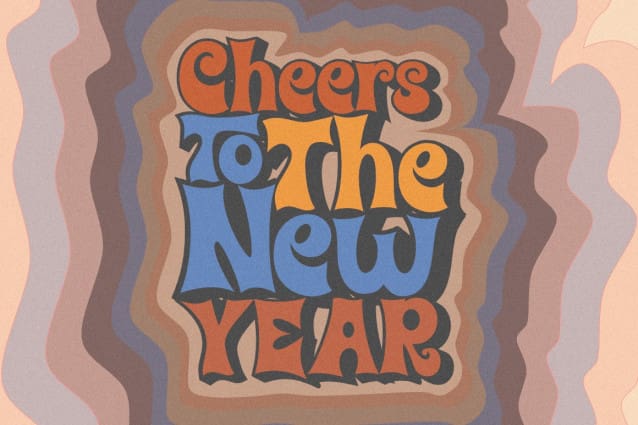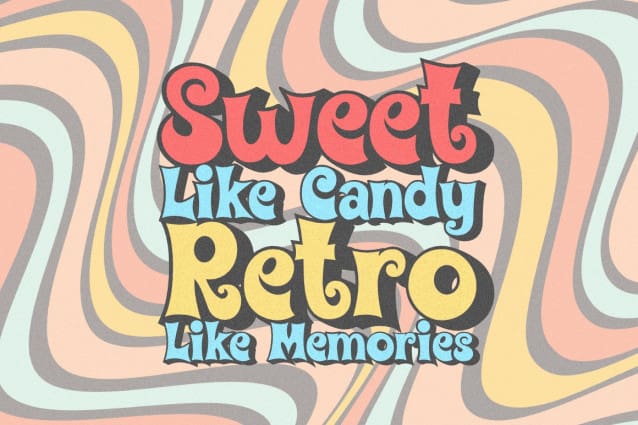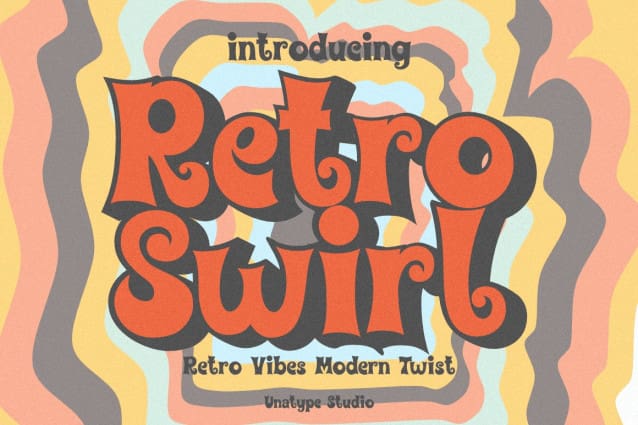
Retro Swirl Font
Retro Swirl Font is a bold display font with curvy, charismatic shapes that exude personality. Inspired by the retro aesthetics of the 60s and 70s, this font combines vintage charm with a modern flair, creating playful, dynamic, and eye-catching typography.